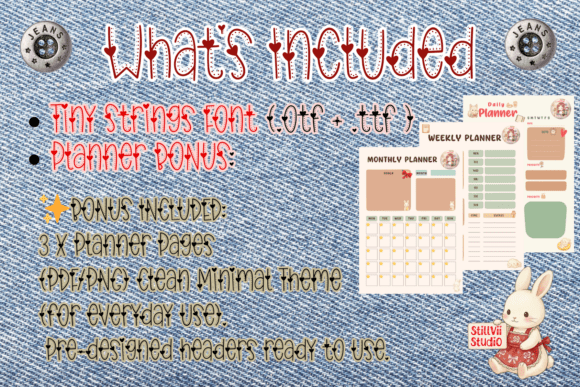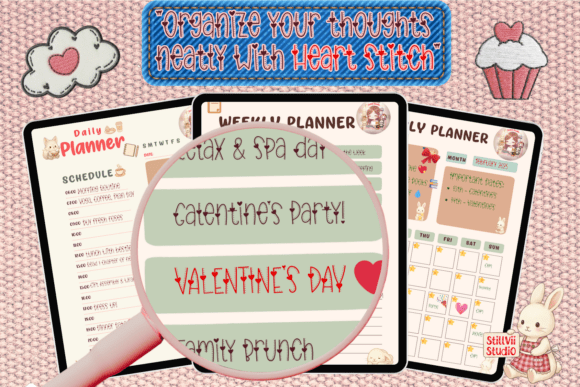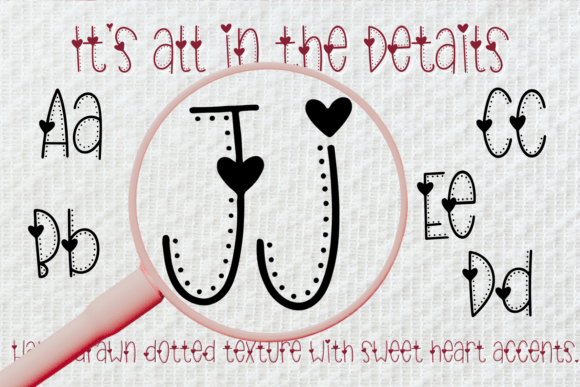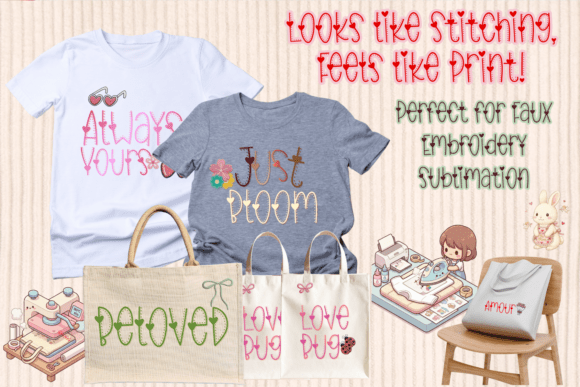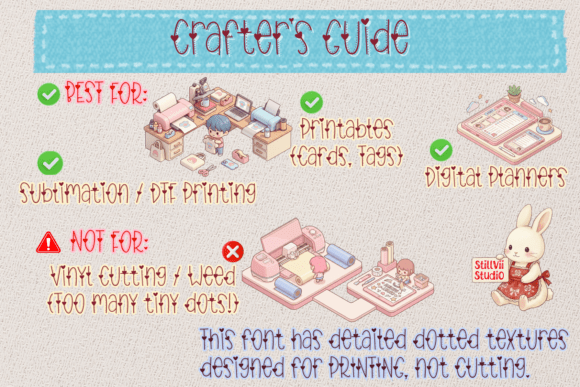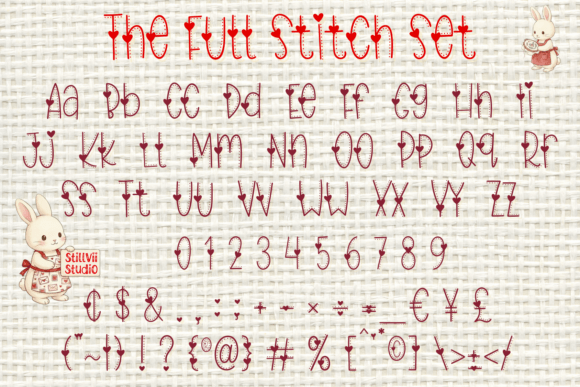
Introduction to Heart Stitch Font
As a crafter, have you ever found yourself in a state of bliss, surrounded by threads, yarns, and fabric scraps, lost in the world of handmade crafts? The tactile feel of stitching, the satisfaction of creating something with your own hands, and the joy of watching a design come to life – it’s a feeling like no other. But what if you could capture this essence in your digital designs, without sacrificing the speed and convenience of digital tools?
That’s where the Heart Stitch Font comes in – a high-quality, faux embroidery font that brings the cozy warmth of handmade crafts to your digital creations. With its delicate dotted lines and sweetheart accents, this font is perfect for sublimation projects, faux embroidery apparel, and adding a tactile feel to digital planners. Whether you’re a seasoned crafter or a design enthusiast, the Heart Stitch Font is a valuable resource that will elevate your creative projects to the next level.
Key Features of Heart Stitch Font
- Unique, hand-stitched design elements for added visual interest
Honest Review: Heart Stitch Font
I recently stumbled upon the Heart Stitch Font, and I’m excited to share my thoughts on this design resource. As a designer, I’m always on the lookout for high-quality fonts that can elevate my creative projects. The Heart Stitch Font definitely fits the bill.
- ✨ The font is incredibly versatile, making it perfect for a wide range of creative projects, from greeting cards to social media graphics.
- ✨ The transparent background option allows for seamless integration with other design elements, giving me more flexibility in my design workflow.
- ⚠️ The font is a bit limited in terms of customization options, which may not be ideal for designers who prefer a more tailored approach.
- ⚠️ The font may not be suitable for all types of projects, particularly those that require a more formal tone.
Overall, I’m impressed with the Heart Stitch Font. While it may not be perfect, it’s a solid addition to any designer’s toolkit. The high quality and versatility make it an excellent choice for a wide range of creative projects. With a few tweaks, I think this font has the potential to be a game-changer in the design world.
Tips for Getting the Most Out of Heart Stitch Font
For the best results, use the Heart Stitch Font in conjunction with other high-quality design elements, such as bold graphics and vibrant colors.
Experiment with different font sizes and colors to create a visually appealing design.
Consider using the font on a transparent background to create a striking visual effect.
The Heart Stitch Font is ideal for a variety of creative projects, including:
Valentine’s Day and anniversary cards
Children’s party decorations and